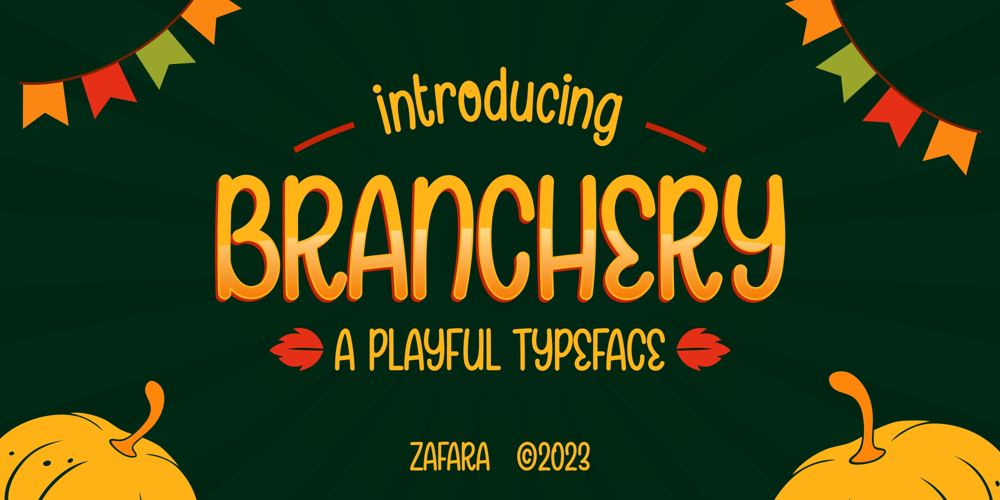
Branchery
Branchery font
Branchery Font Family was designed by Zohan Nur Muchlis and published by Zafara Studios. Branchery contains 1 styles and family package options. Branchery font can be used for various purposes. Often used to create a personal and inviting impression, and can be used for a variety of purposes, such as invitations, greeting cards and marketing materials, thanksgiving, harvest parties, logotypes, and many more.However, basically it can be used with a wider range of themes depending on your needs.The Details:- 232 Glyphs: Uppercase, Lowercase, Numbers, Punctuation, Language Support & Ligatures- 3 Standard Ligatures: Enabled by default to create a hand-drawn feel! (Make sure your open-type features are enabled!)